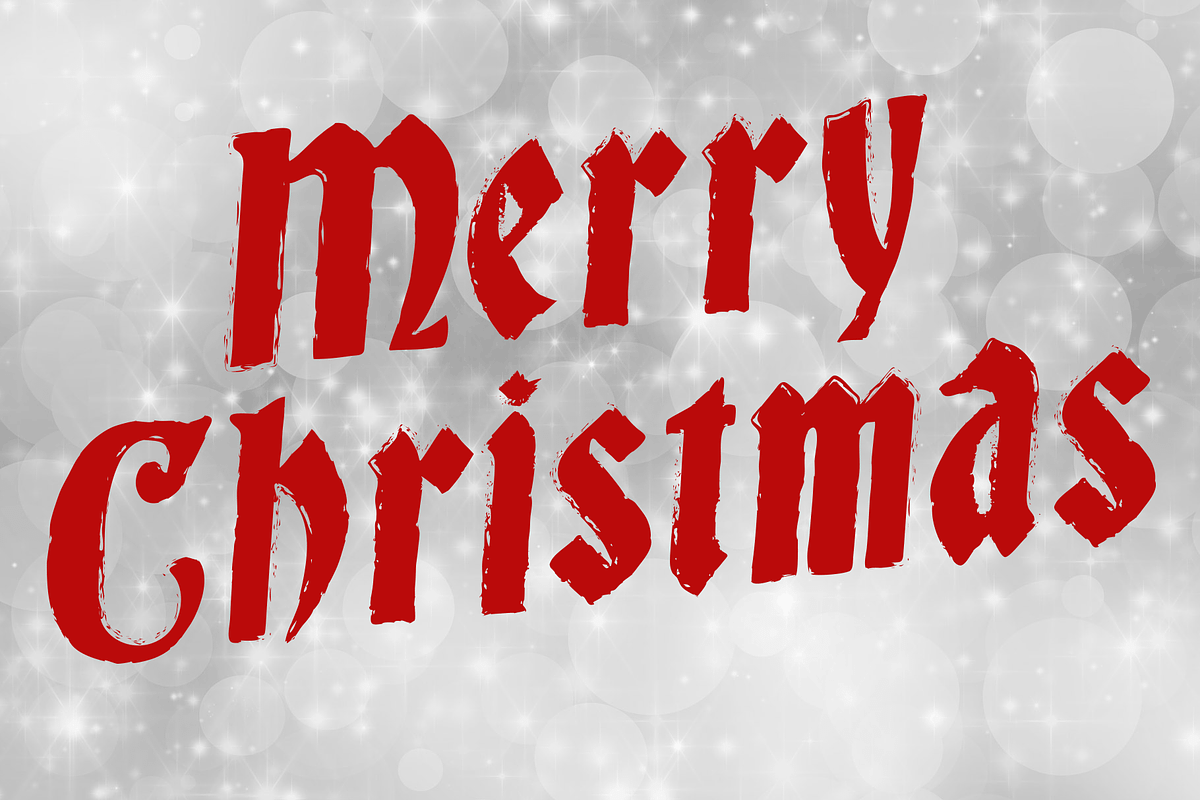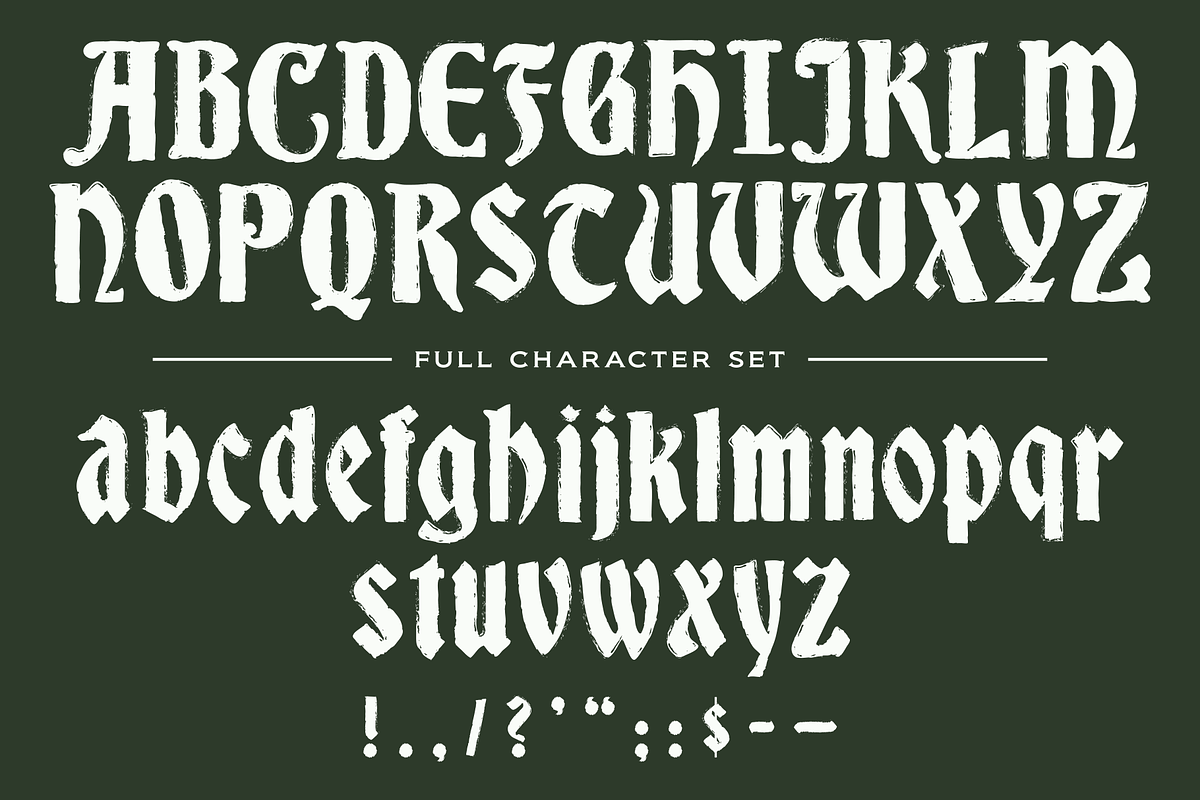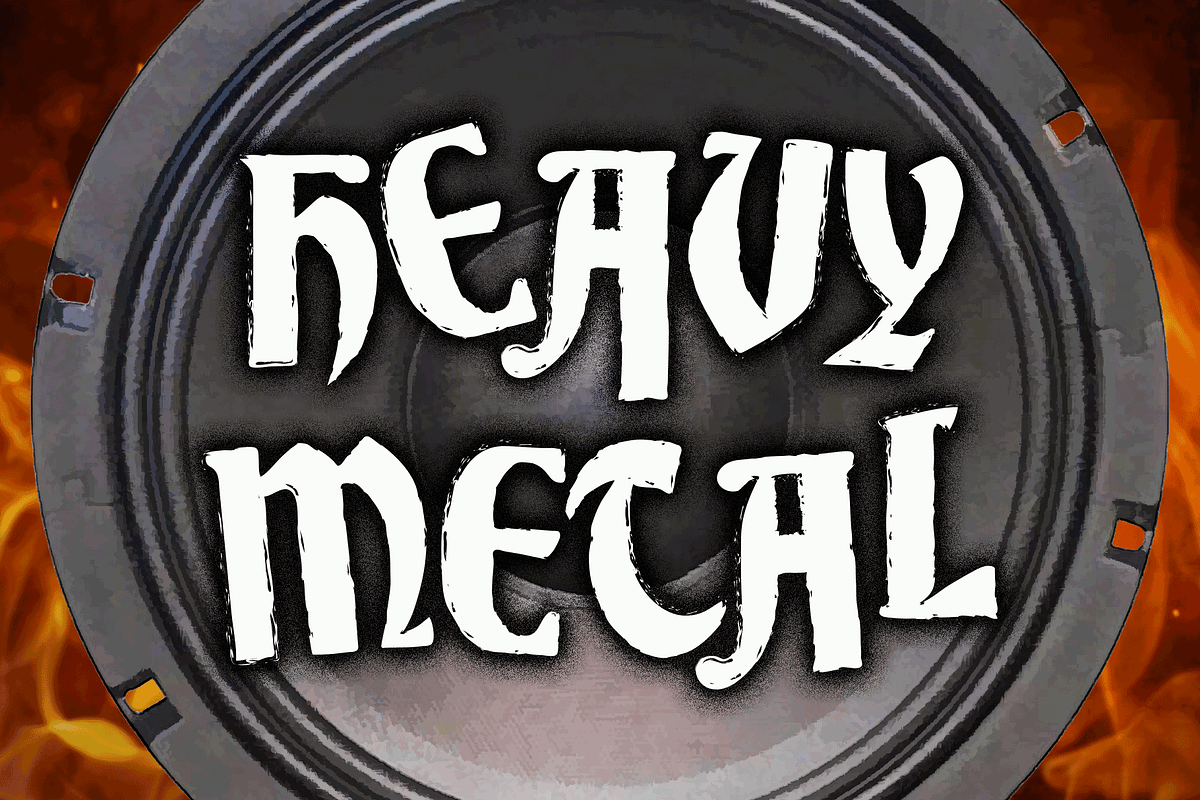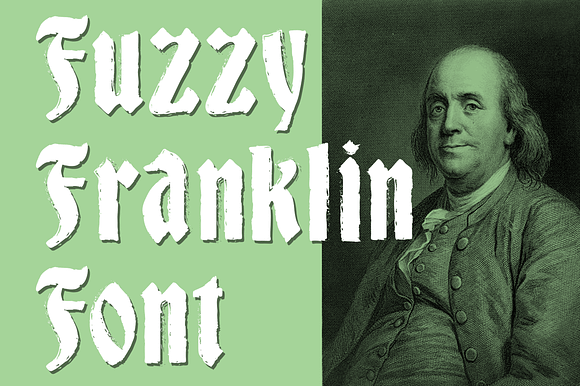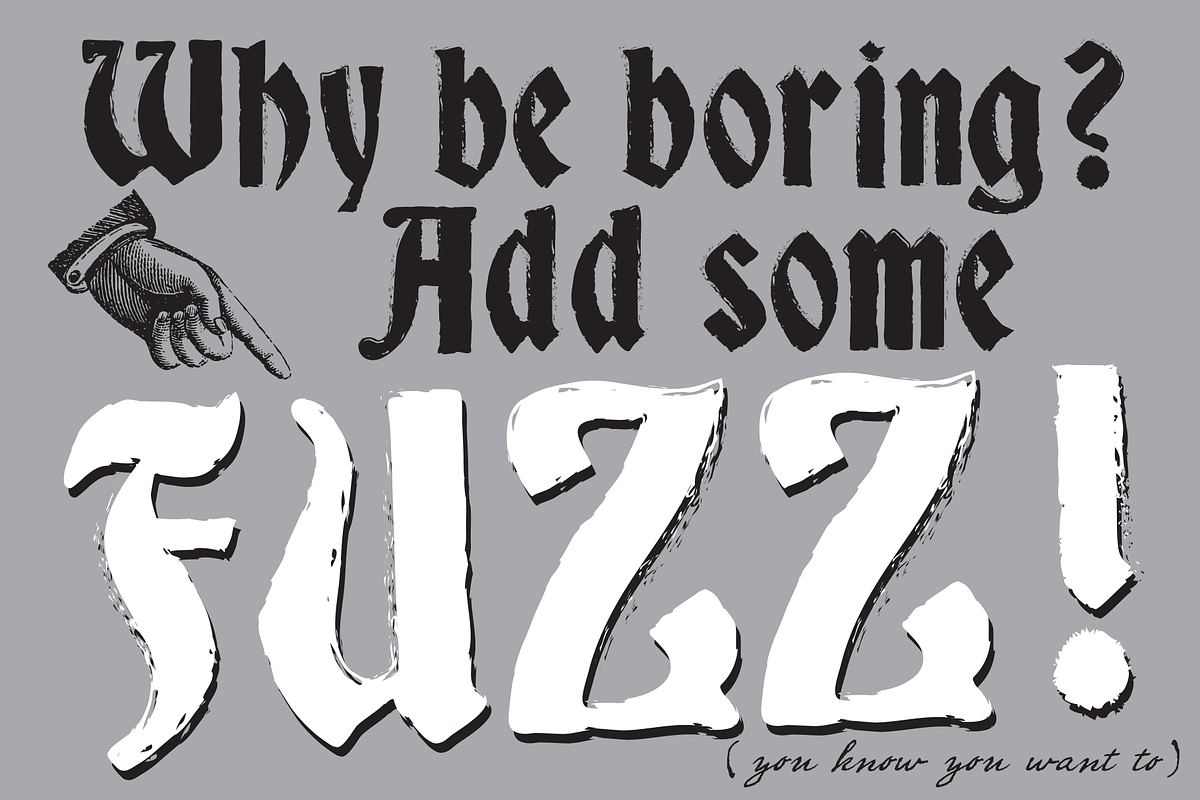
Fuzzy Franklin Font
Based on an old wood type, but with some added flair. A very versatile font that can be used for every occasion. But, why are you reading this? Just look at the beautiful sample pictures!